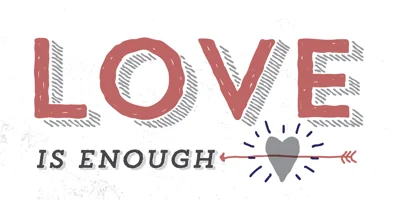
Trend Hand Made Font
Trend Hand Made Font is perfect for artisanal design applications including handcrafted product branding, artisan marketplace signage, craft workshop materials, handmade jewelry labels, boutique packaging, creative studio logos, maker space graphics, and authentic small business promotions. This distinctive typeface captures the warmth and authenticity of handcrafted artistry and contemporary maker culture.
What makes Trend Hand Made Font exciting is its genuine representation of handcrafted aesthetics with organic letterforms that celebrate the imperfections and character of authentic handmade work. The font features natural variations and textural qualities that mirror the human touch in artisanal creation, connecting brands with audiences who value authenticity and craftsmanship. Its handmade character embodies creativity, individuality, and the personal connection that defines artisan culture.
The Trend Hand Made Font family includes various craft-inspired styles such as Regular, Bold, Rough, and decorative alternates with hand-drawn flourishes that enhance the artisanal aesthetic. These authentic options provide comprehensive design solutions for creating genuine handcrafted brand identities that celebrate maker traditions and contemporary craft movements.
This specialized artisan typeface brings authentic handmade character to contemporary design projects. Craft businesses and artisan brands choose Trend Hand Made Font for its exceptional ability to communicate authenticity and creative craftsmanship. The font's handmade inspiration makes it perfect for artisan shops, craft studios, and small businesses that want to emphasize their handcrafted values and personal touch. Its organic character ensures memorable brand recognition while maintaining the authentic aesthetic that defines exceptional artisan-focused design work.